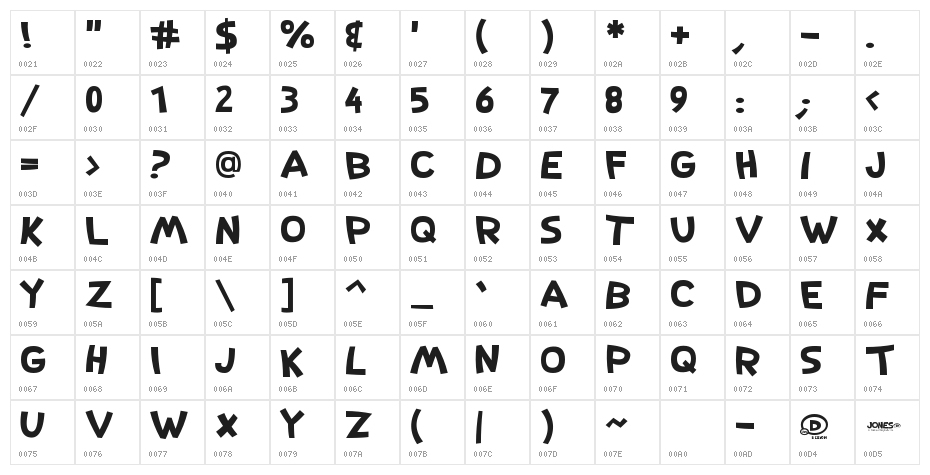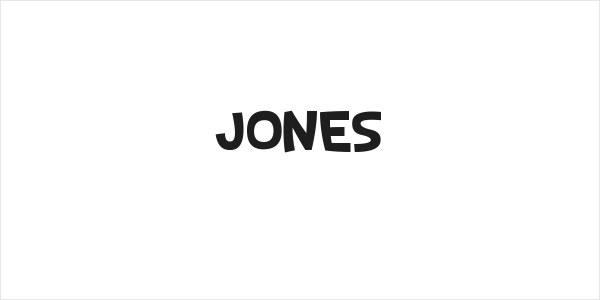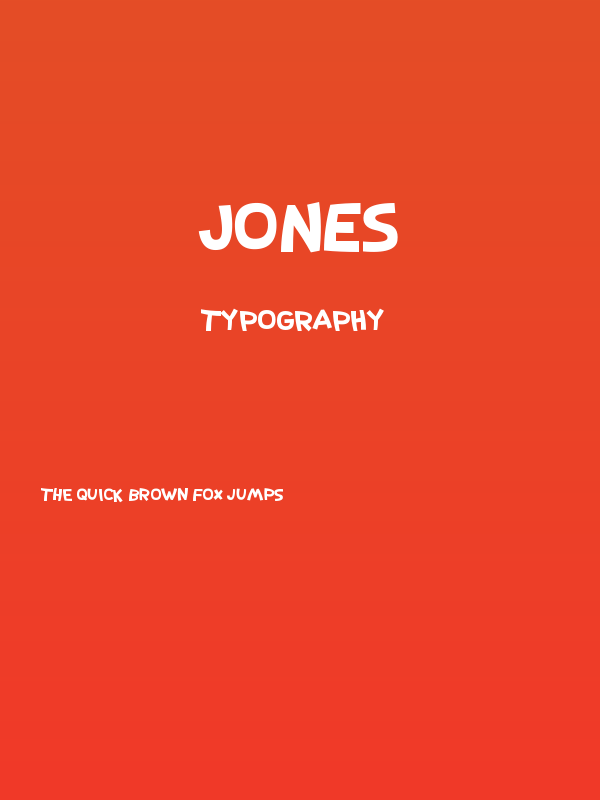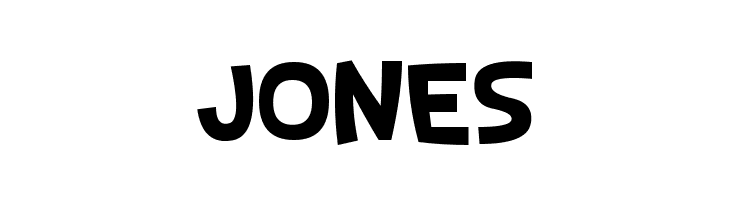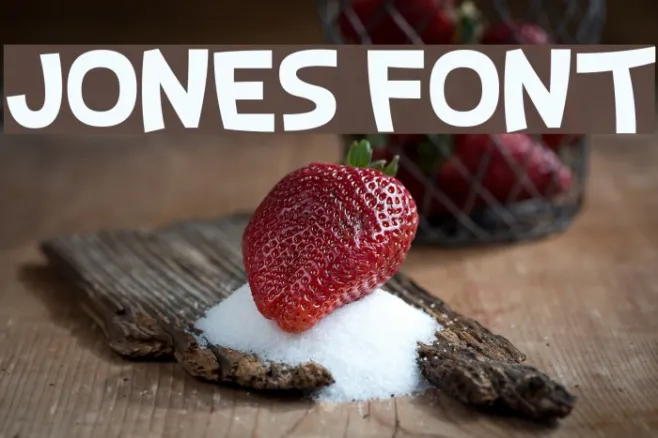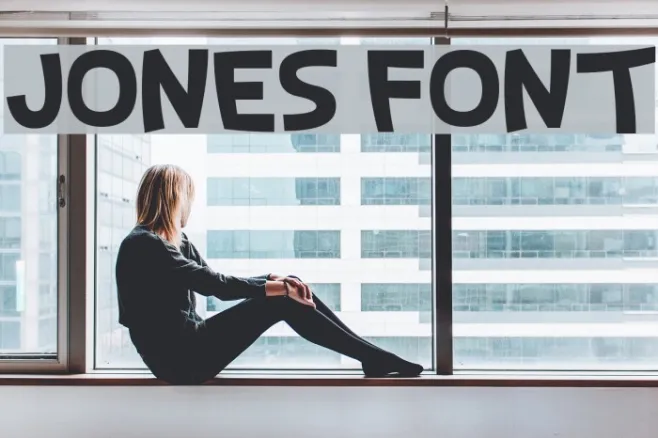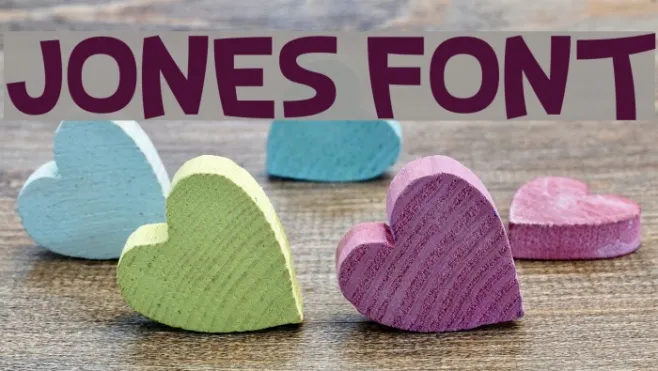
Jones Font
Jones Description
This font features a playful and bold style with exaggerated curves and angles, giving it a lively and dynamic appearance. The characters are slightly irregular, adding a whimsical touch that makes it stand out. The uppercase and lowercase letters maintain a consistent weight, contributing to its bold presence. The numbers and special characters follow the same playful design, ensuring a cohesive look across all elements. This font is ideal for projects that require a fun and engaging aesthetic.
| Use Case | Logos, Posters, Children's books |
| Proposed Projects | Perfect for children's books, comic strips, playful branding, and eye-catching posters. |